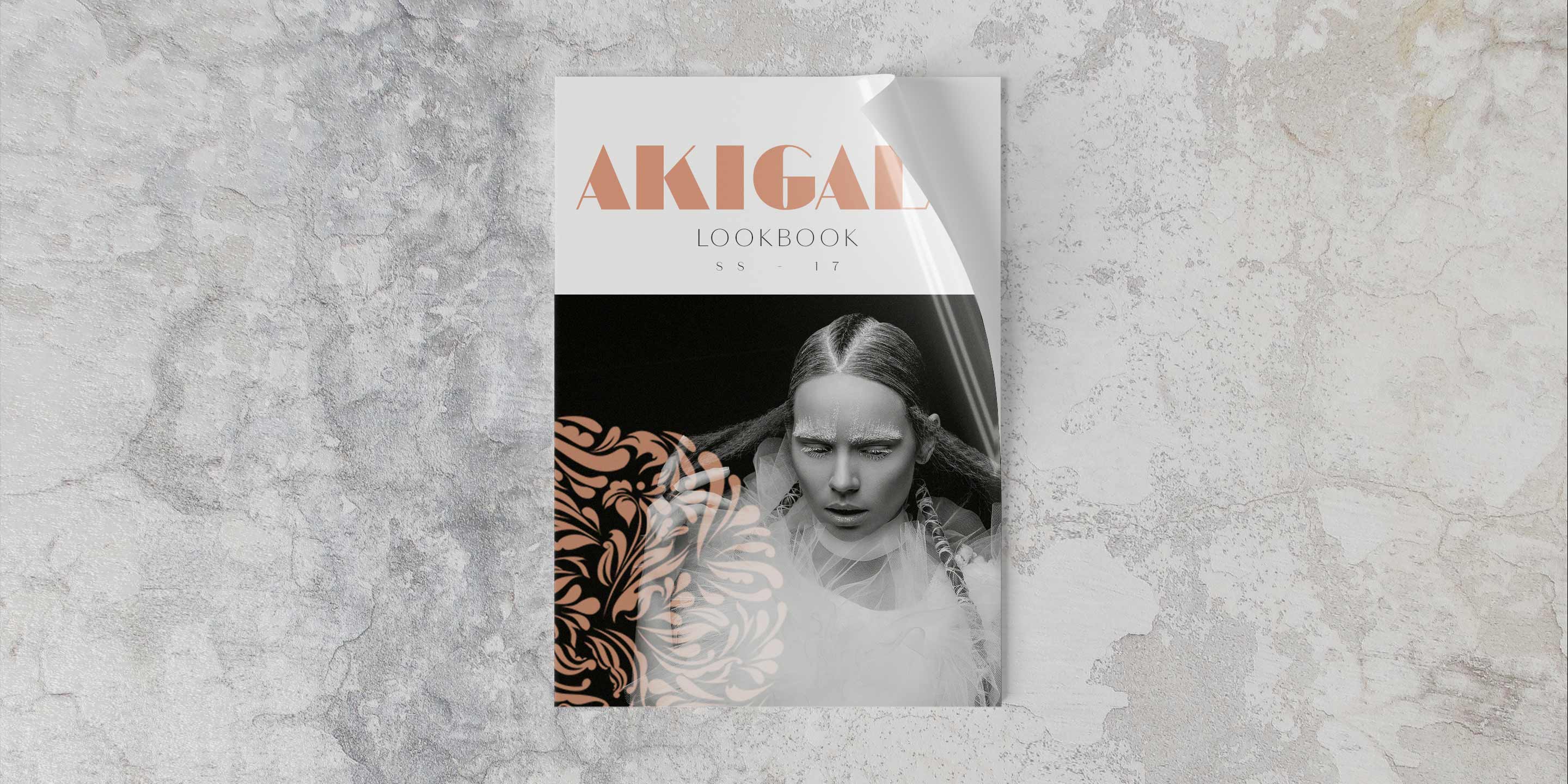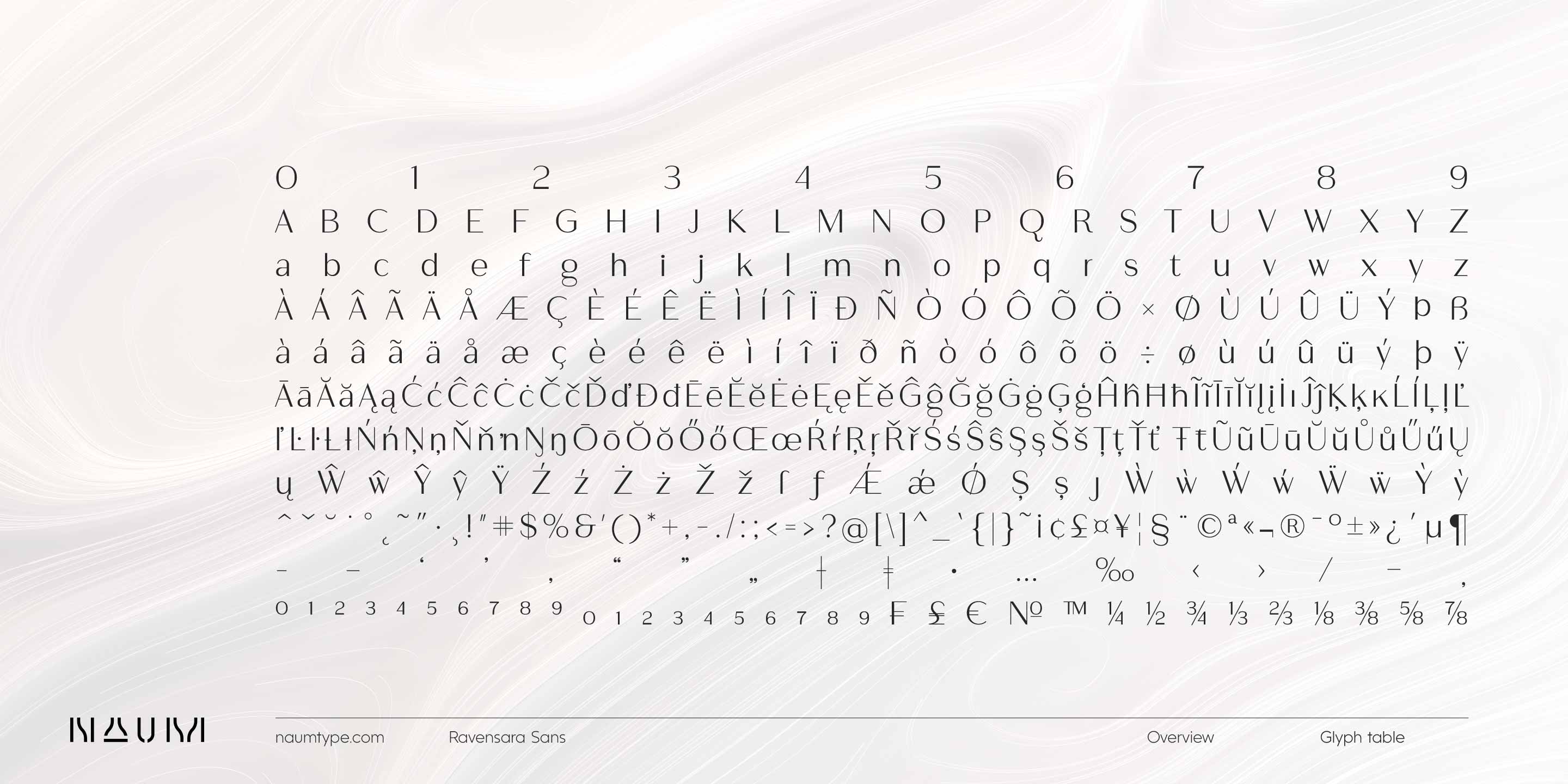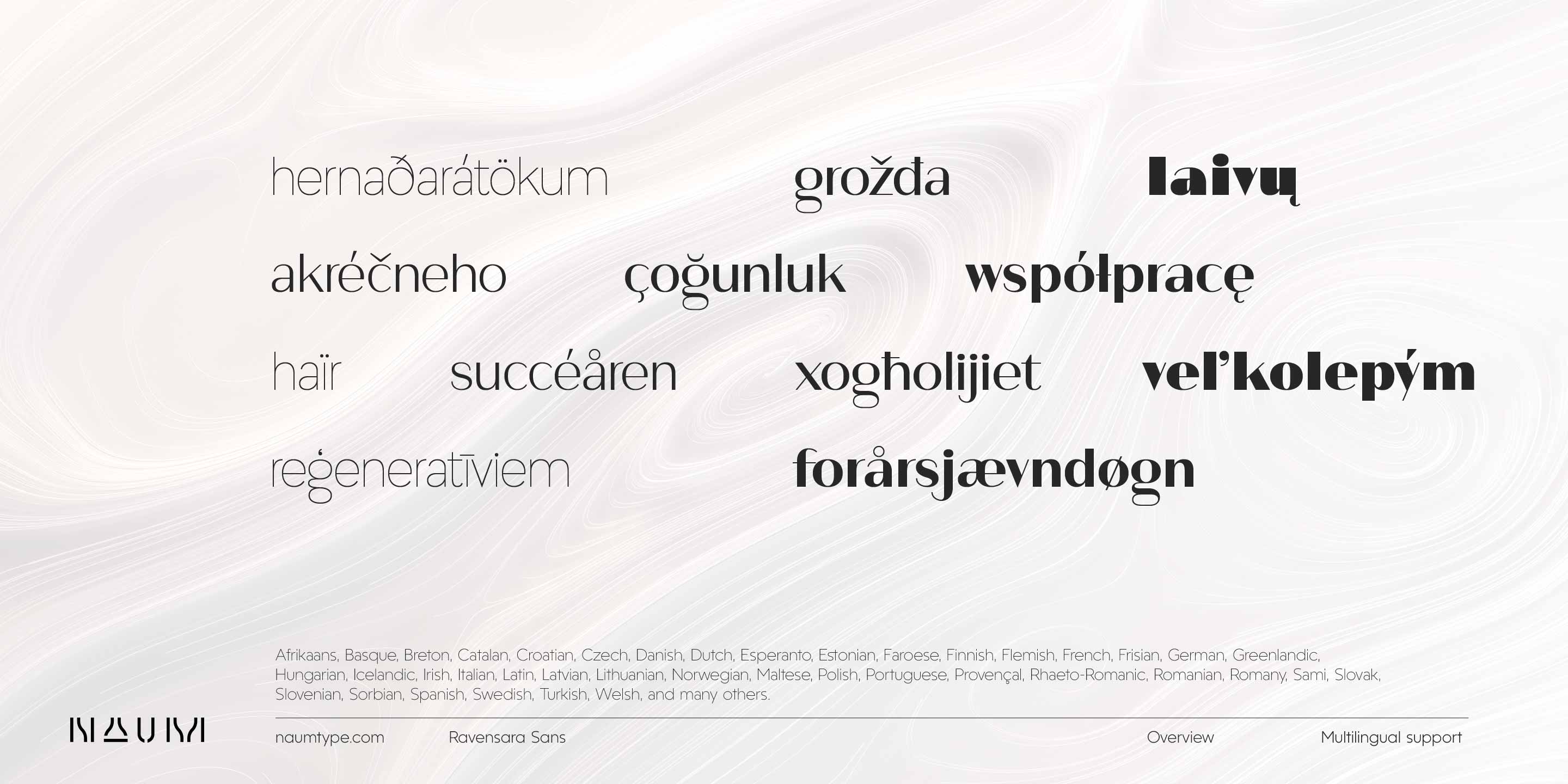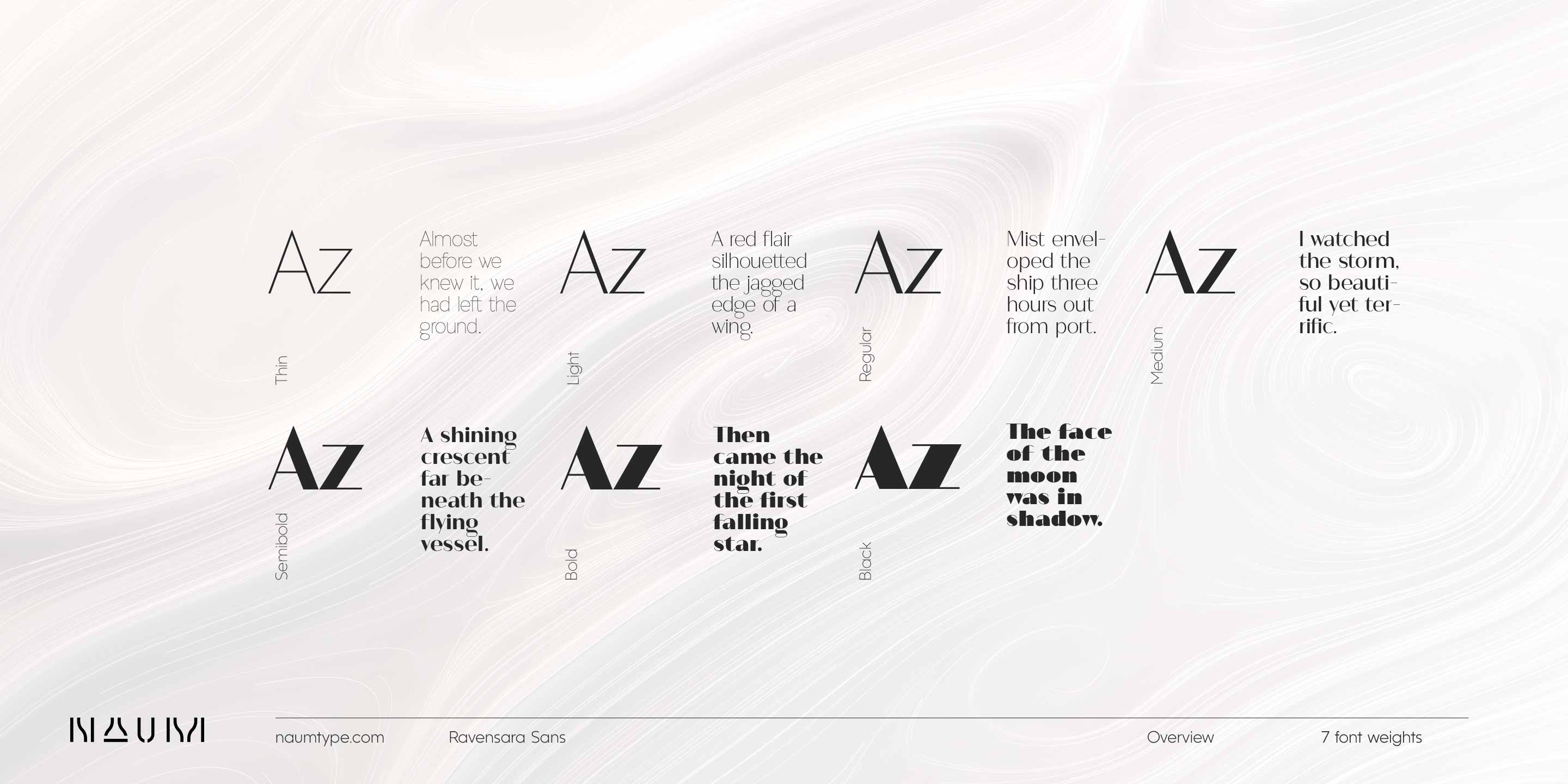
Ravensara Sans — fashionable, high-contrast humanist sans.
Ravensara family was born from the idea of taking the Didone concept to weight extremes.
Thus, following this idea, the thinnest weight became the thin monoline style, and the widest — the maximum contrast Didone.
Basically, the vertical stems weights vary through the styles while the horizontal staying thin. (Or absent, if we’re talking about Stencil style)
Ravensara Sans is a part of the Ravensara superfamily, united by the same anatomy, which currently also includes Ravensara Serif and Ravensara Stencil.